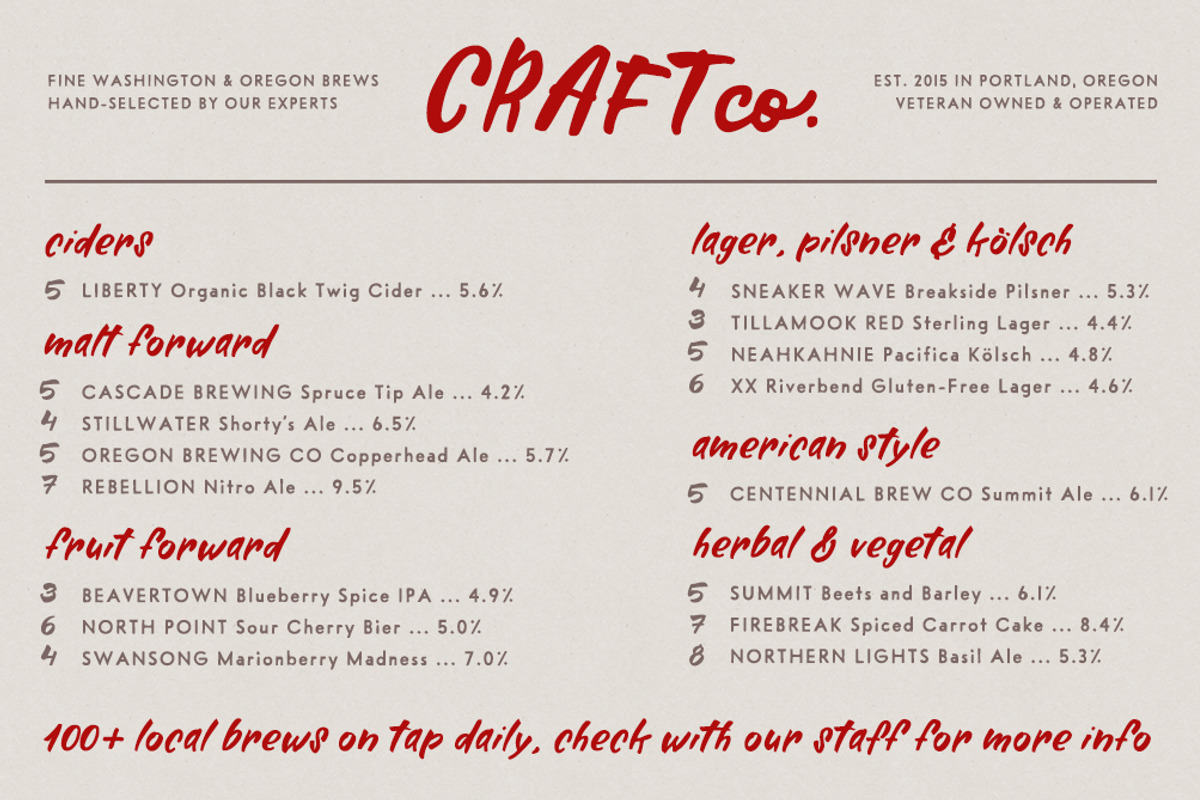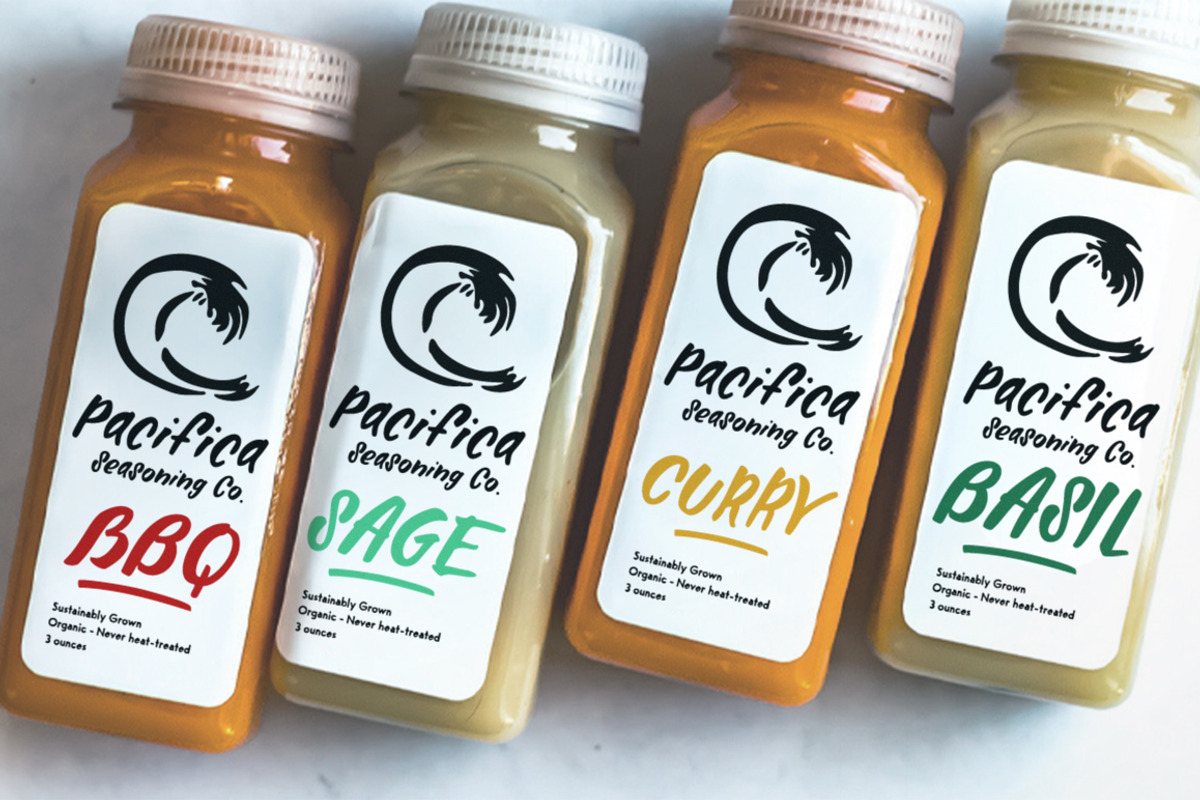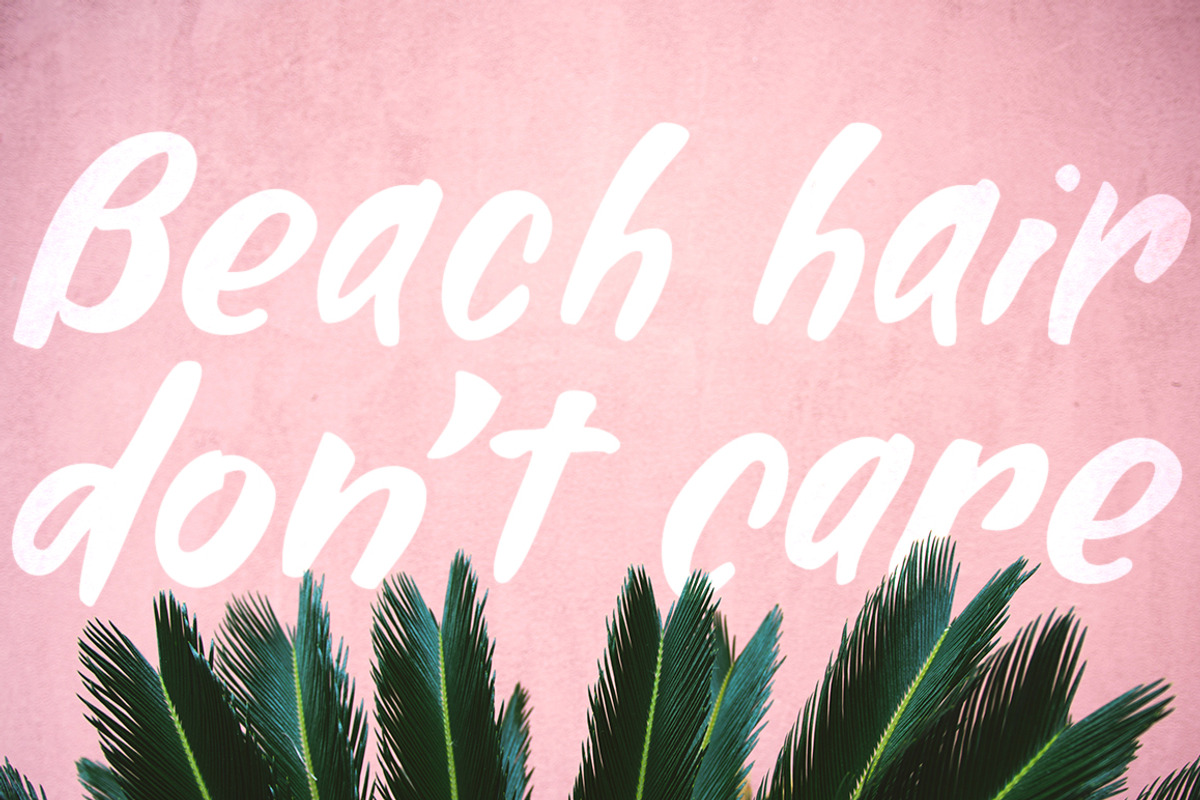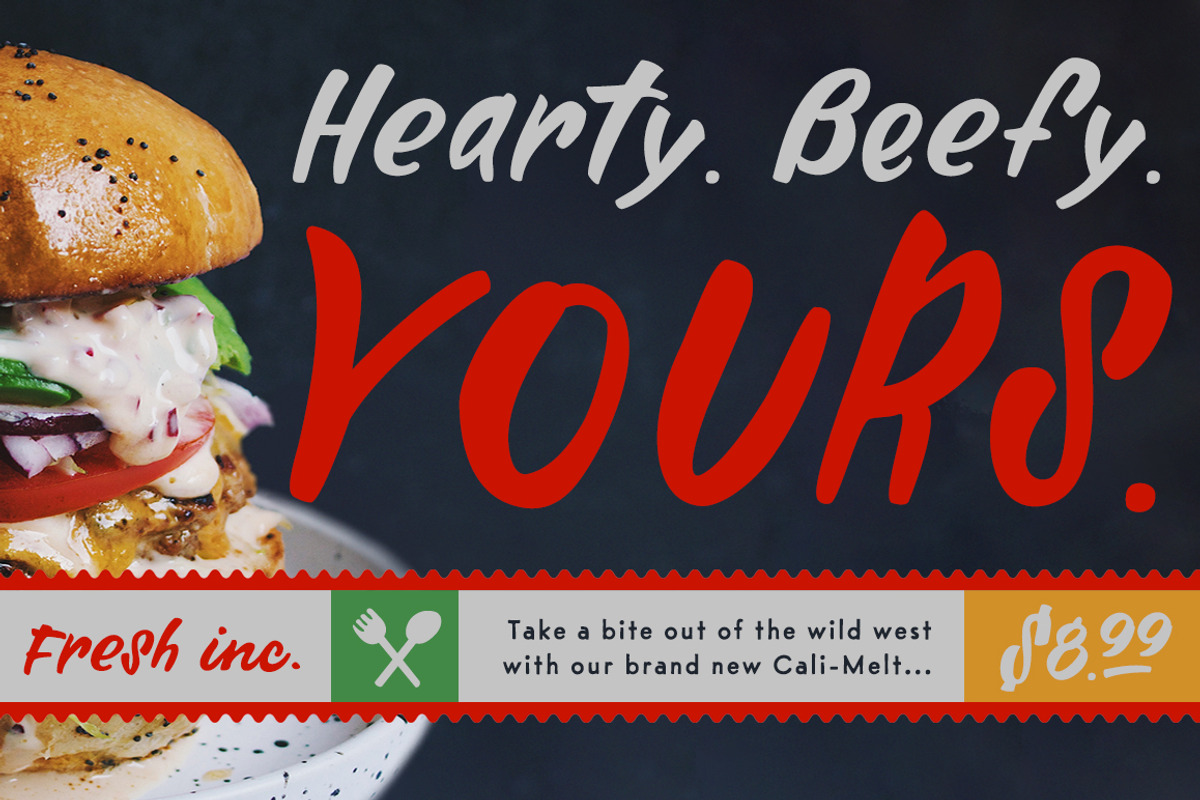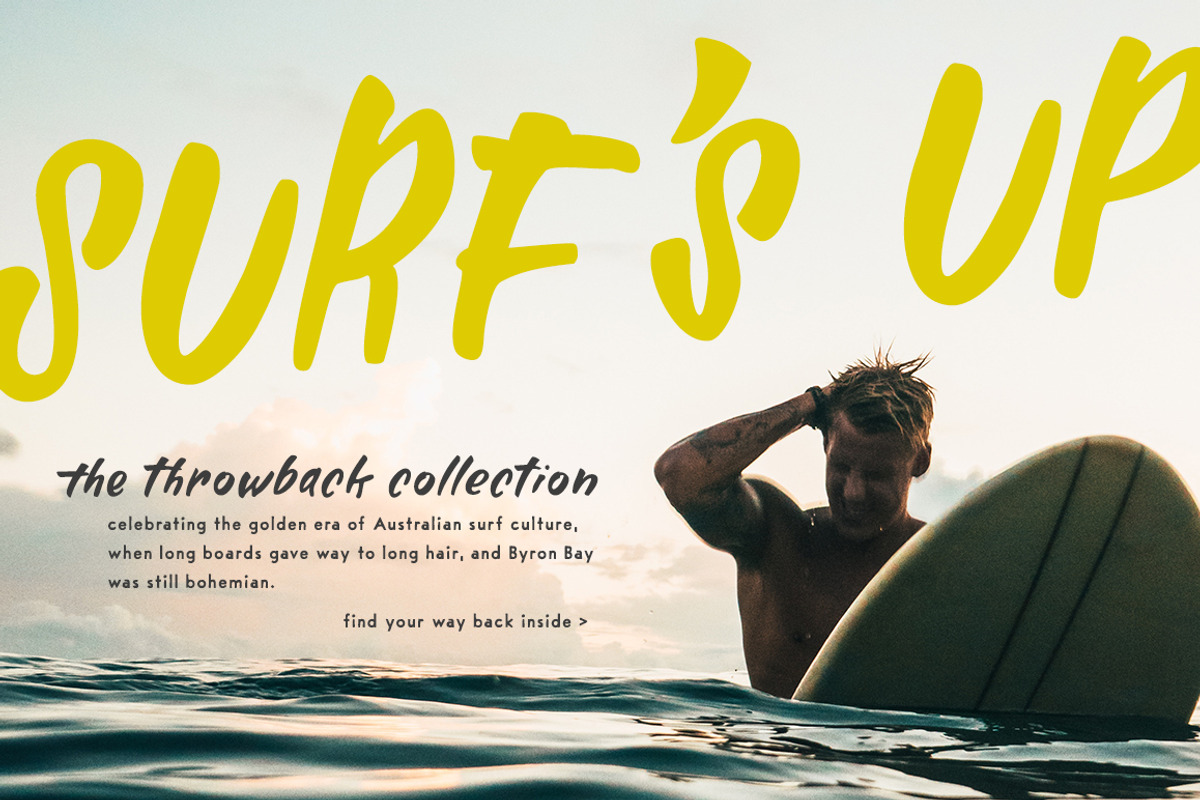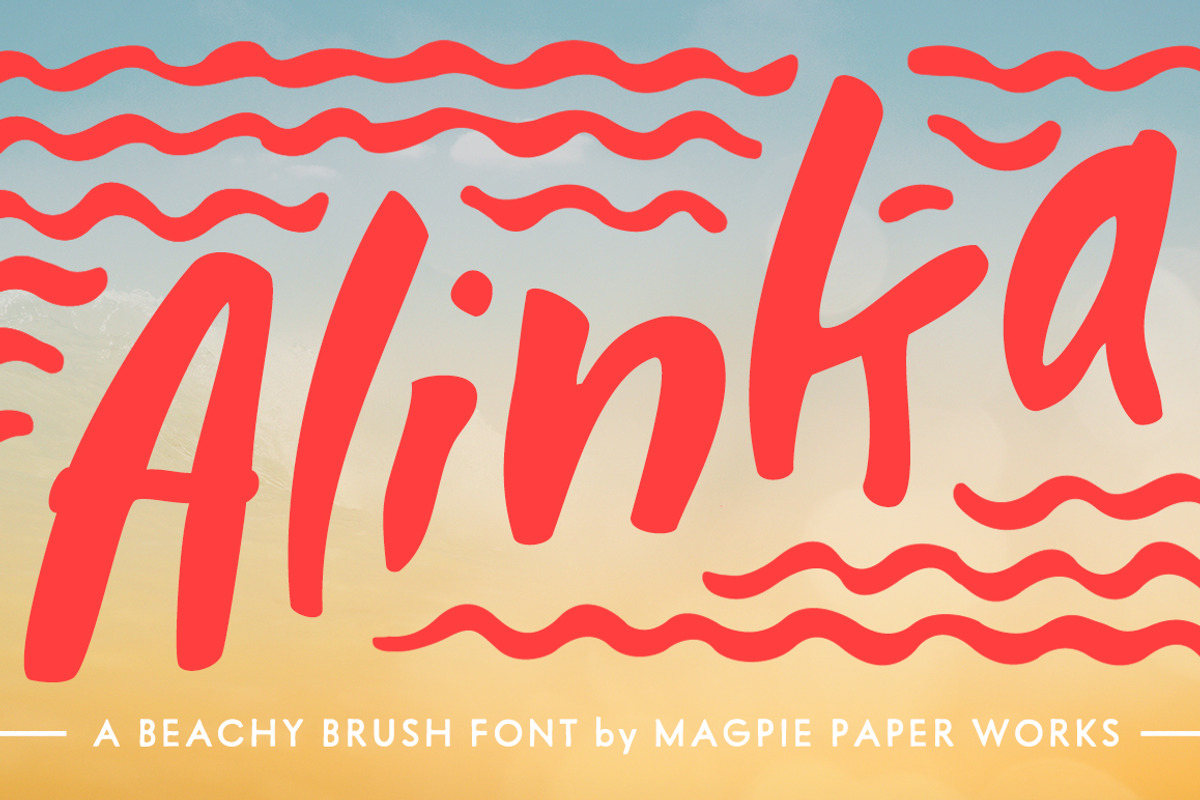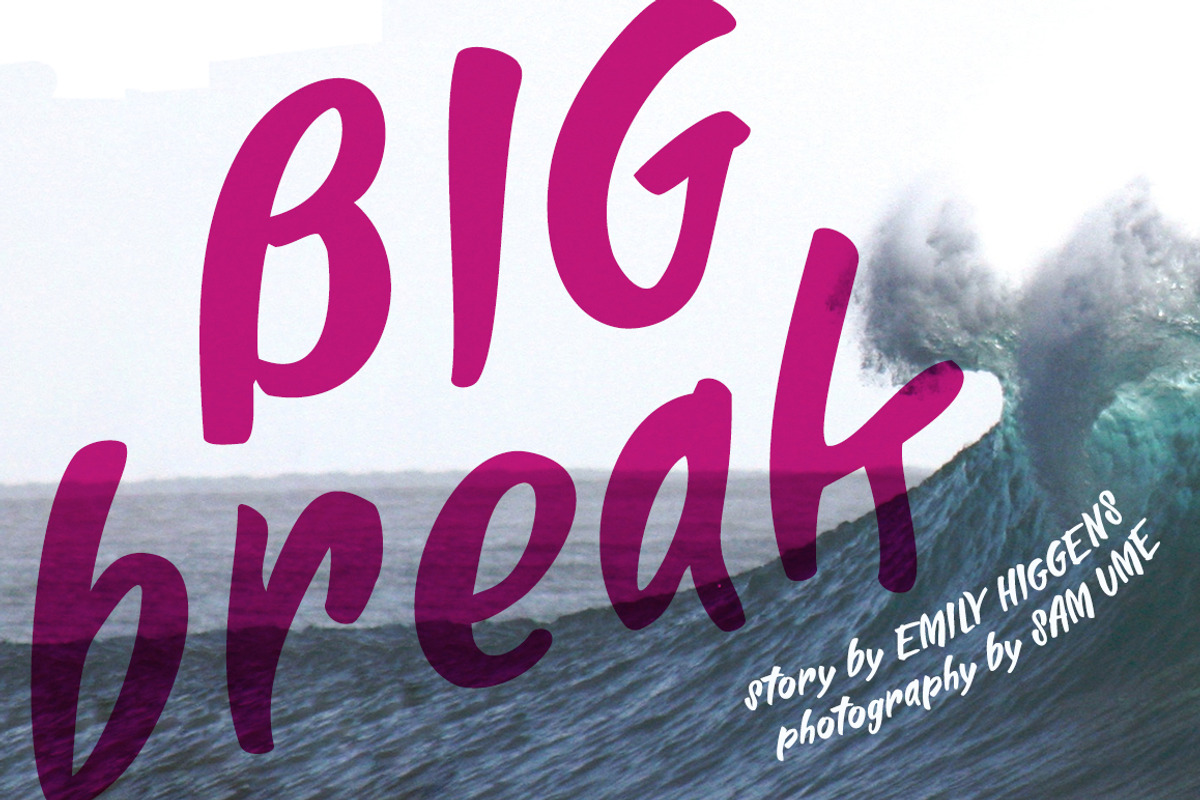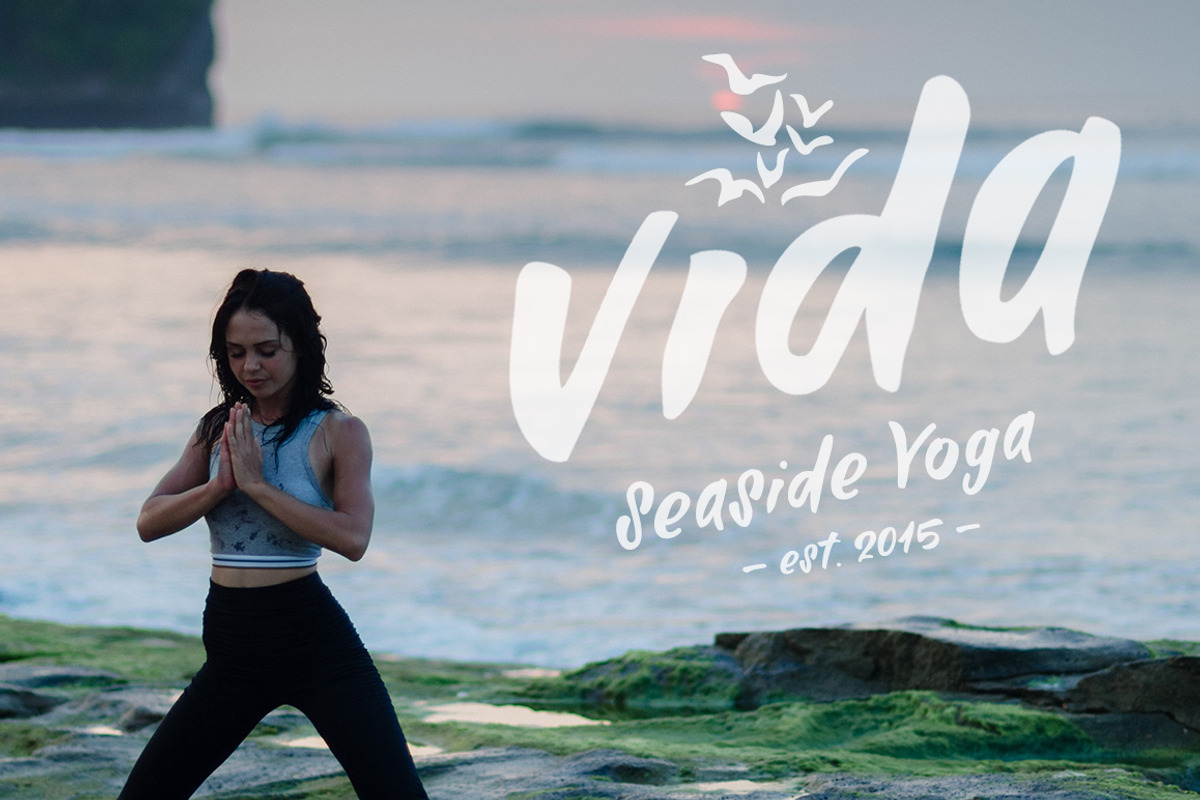
Alinka Brush Font
Surf’s up, and so is Alinka! This brush sans, inspired by the Pacific Northwest coast, was originally lettered with watercolors and fat bristle-brushes, then optimized for digital display. It’s warm & organic characters have been designed to coordinate with a variety of work-horse typefaces – you’ll find Alinka right at home on beverage bottles and food packaging, in restaurant menus, banner ads, book covers, websites, stationery, business logos, handmade product packaging and so much more.
A bonus set of 72 Pacific-Northwest beach-inspired graphic elements including seagulls, starfish, shells, kelp, surfing imagery, wordart, arrows, and minimalist shields & dashes is tucked inside. Simply turn on stylistic set 3 to tap into the perfect graphic companions for all of your expressive projects.
If you're looking for a legible but quirky brush hand with a human touch, Alinka is the font for you.
a basic Latin character set with a full set of uppercase and lowercase letters, multilingual diacritics, numbers, international currency figures, punctuation and pagination symbols.
a complete set of alternate uppercase and lowercase letters
automatic dashed superscript pricing options
alternate cuts (with diacritics) of A, T, Y, a, fi, fl, g, j, t, y, 1, and 3
72 Pacific-Northwest beach-inspired graphic elements